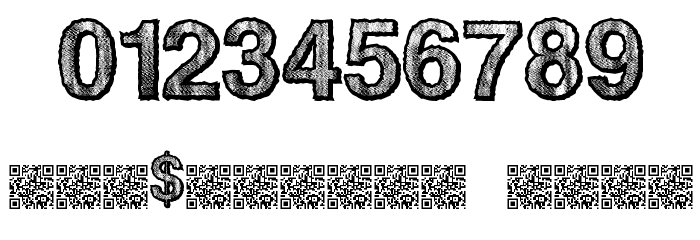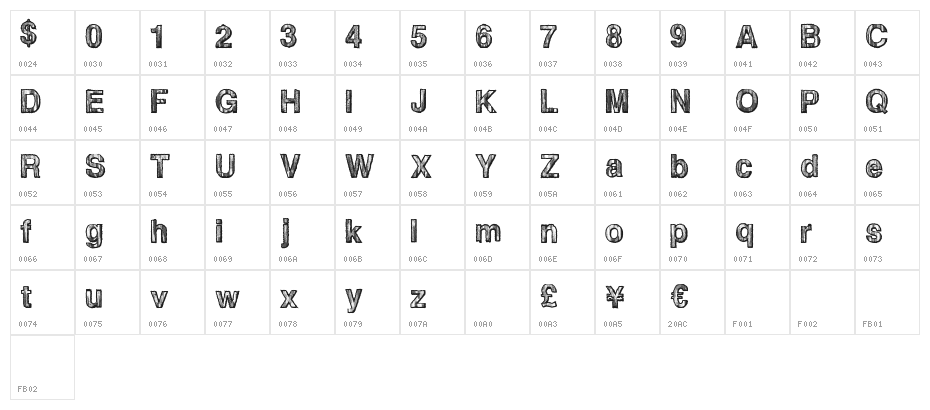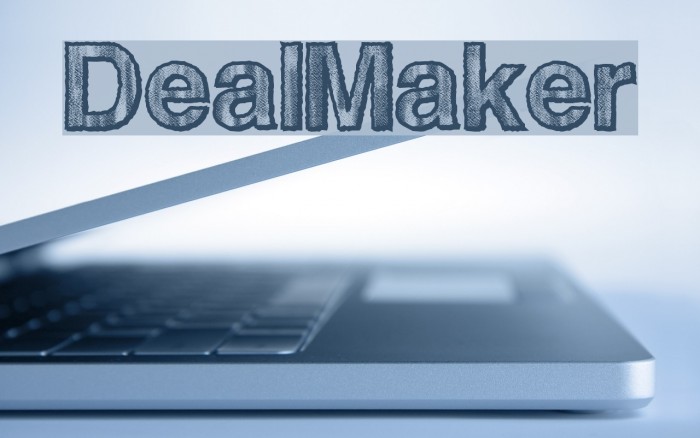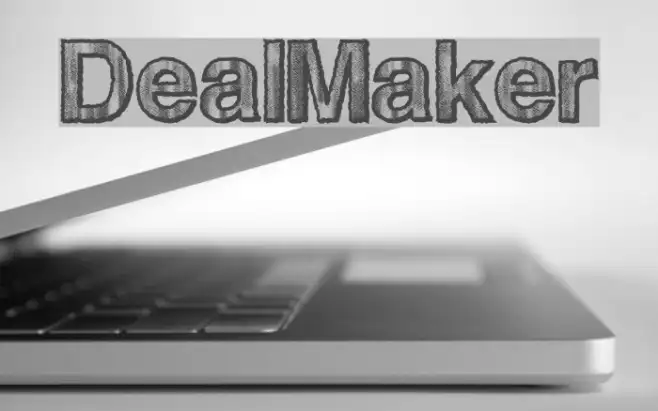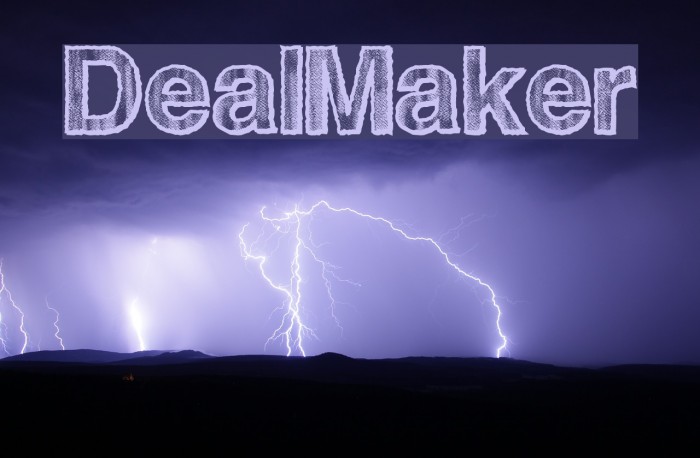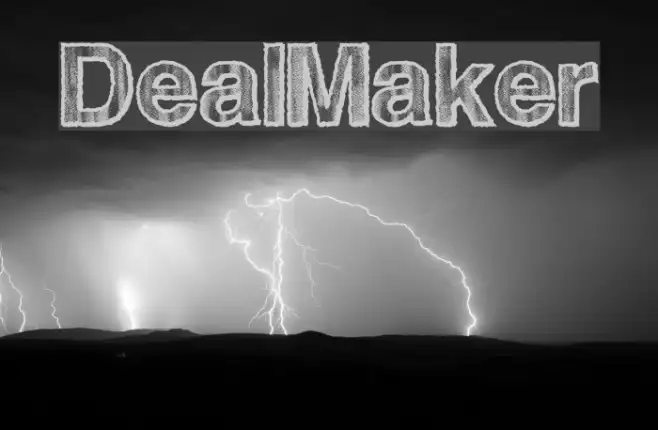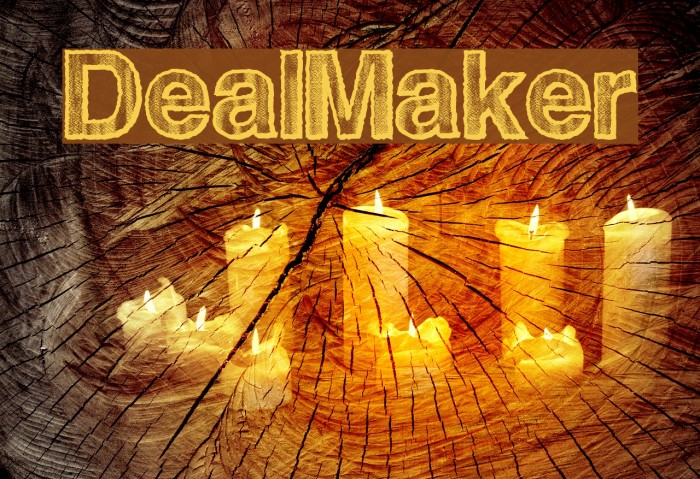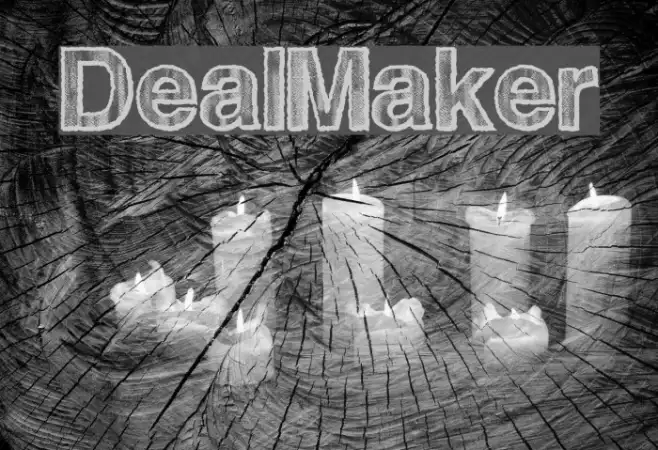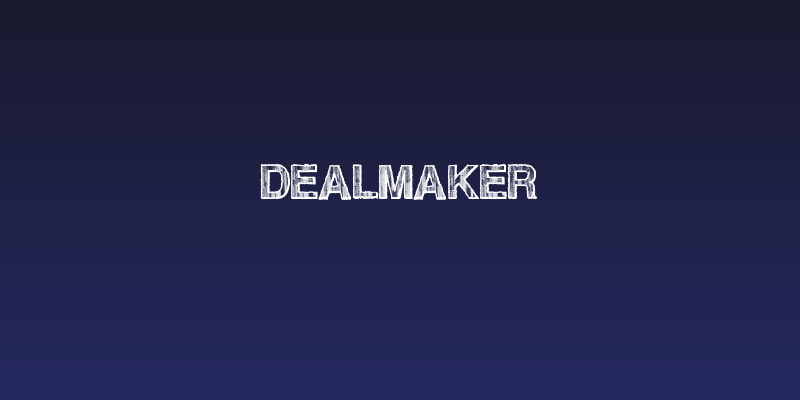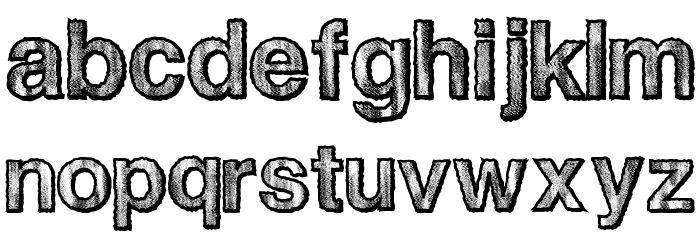
DealMaker Font
DealMaker Description
This font features a bold, textured style with a hand-drawn appearance. The characters are uppercase and lowercase letters, numbers, and a selection of special characters. Each letter has a rough, sketch-like texture that gives it a unique, artistic feel. The strokes are thick and consistent, providing a strong visual impact. The font maintains a uniform width across all characters, ensuring readability while adding a creative flair. The special characters are designed with the same textured style, making them cohesive with the rest of the font. This font is ideal for projects that require a bold, artistic touch.
Overall StyleArtistic, Hand-drawn
Proposed ProjectsIdeal for posters, artistic branding, creative logos, and eye-catching headlines.